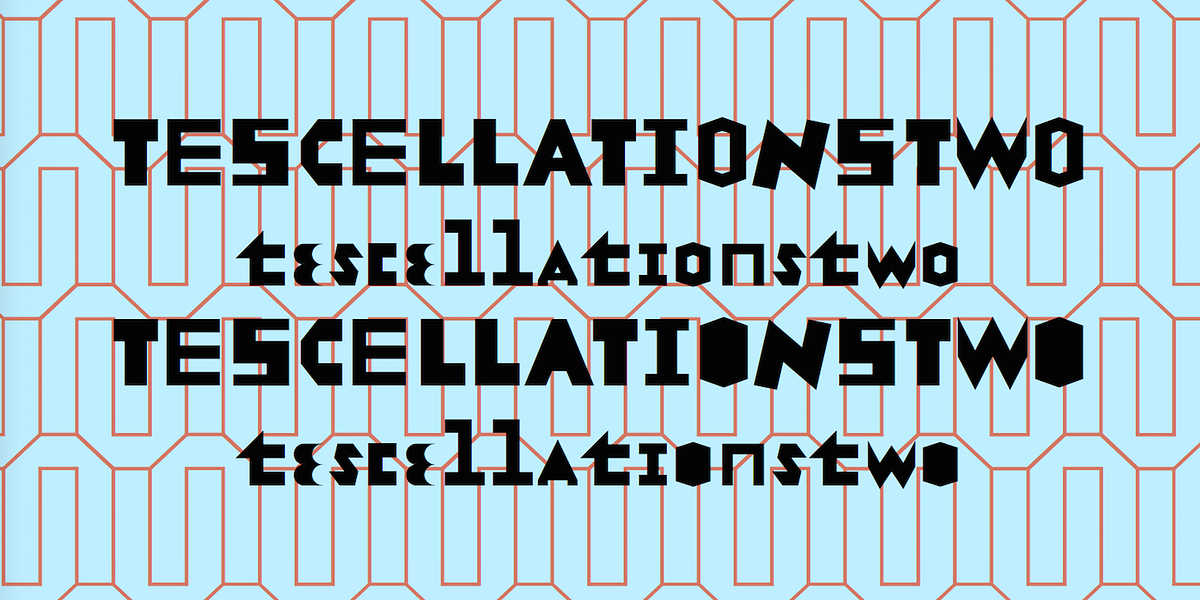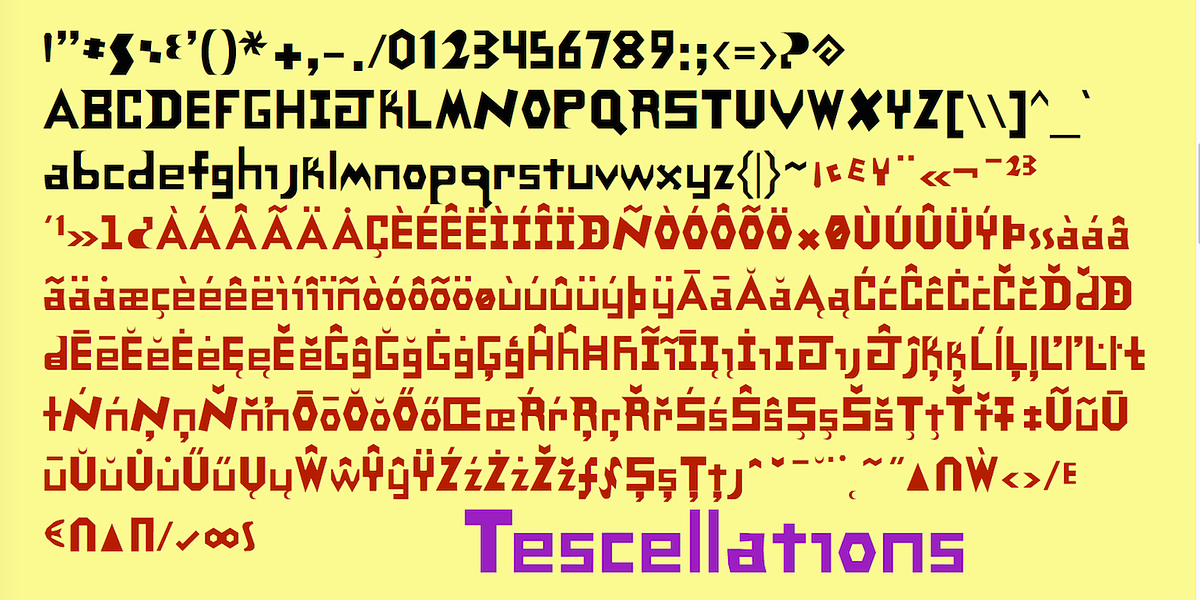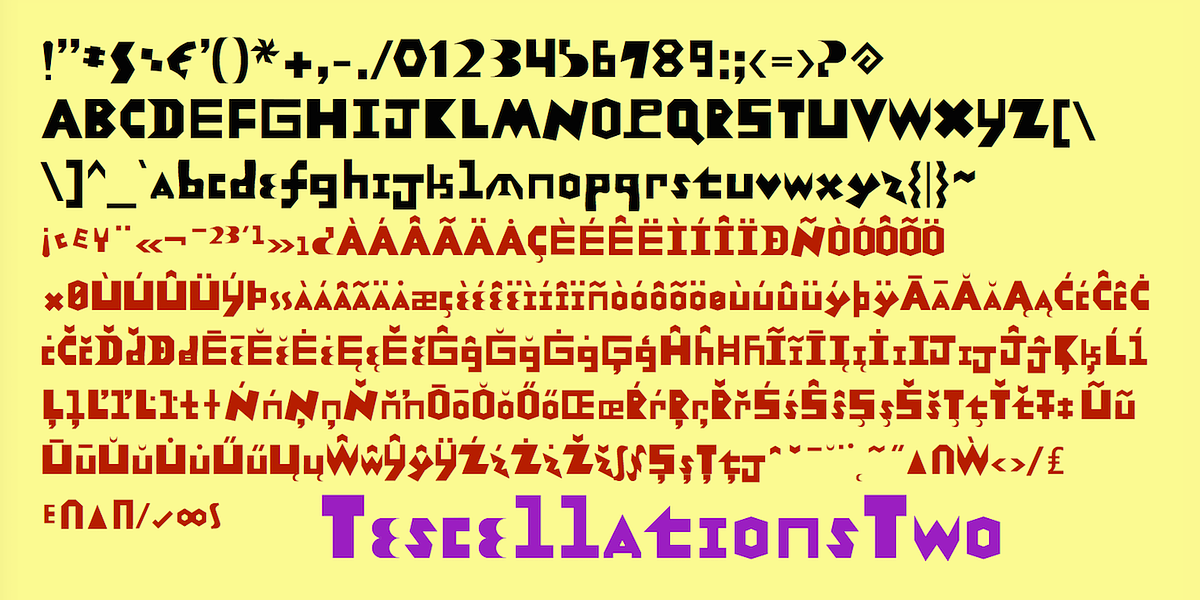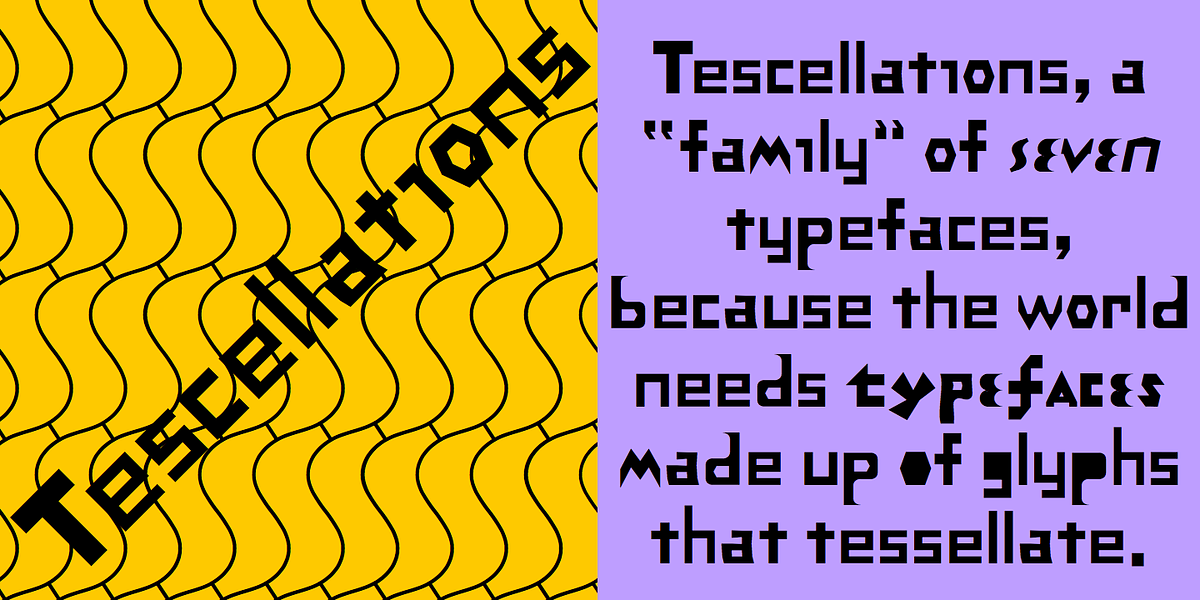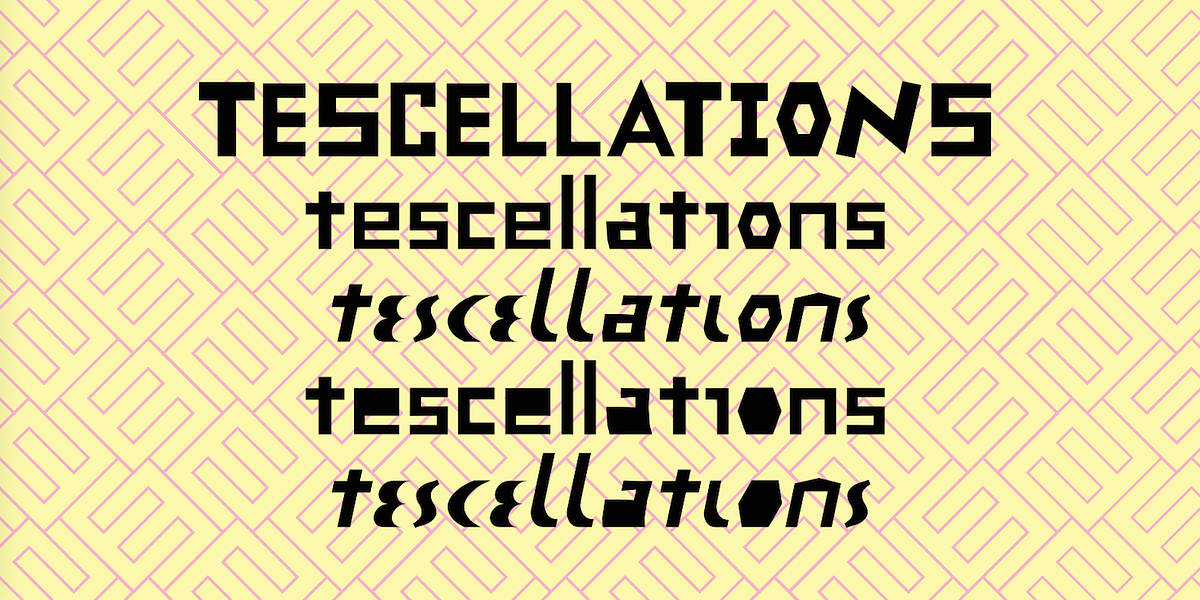
Tescellations
The Tescellations typeface family is a unique collection of dingbat fonts consisting of tessellating letterforms. The primary function of these fonts is to create repeating patterns and designs using individual letters. There are multiple variations within the family, including a standard version, an italics version, and versions with filled or empty counters.